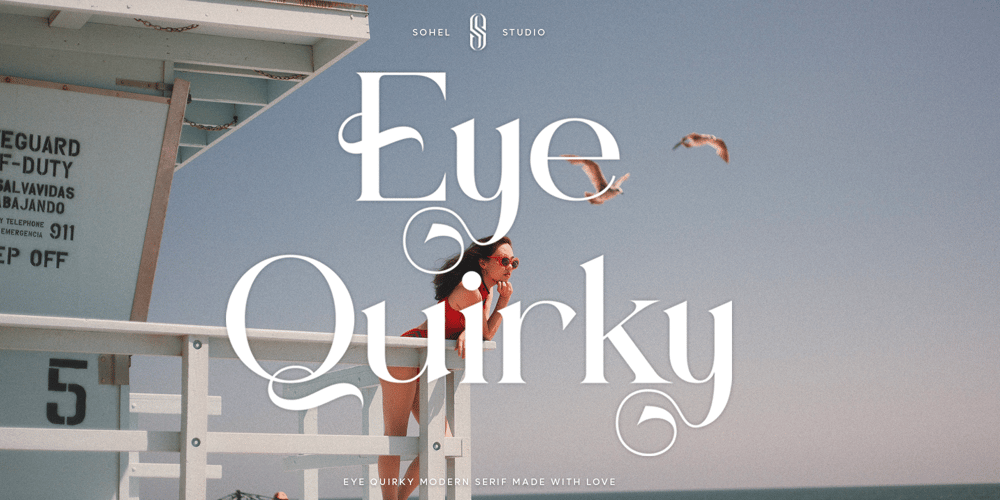
Eye Quirky
Eye Quirky font
Eye Quirky Font Family was designed by Akhmad Husain Rifa’i and published by Sohel Studio. Eye Quirky contains 2 styles and family package options. Eye Quirky is a Modern elegant serif typeface with Unique alternative , multilingual support with perfect kerning.This typeface is perfect for an elegant & luxury logo , classy editorial design, women’s magazine, fashion brand , cosmetic brand, fashion promotion , modern advertising design, invitation card, art quote, home decoration , book/cover titles, special events, Tote bag, T-shirt, Advertising and much more.Eye Quirky Features:• Uppercase And Lowercase• Alternates And Ligatures• Numerals & Punctuation• Accented characters• Multilingual Support• Unicode PUA EncodedWhile using this product, if you encounter any problem or spot something we may have missed, please don’t hesitate to drop us a message. We’d love to hear your feedbacks in order to further fine-tune our products. Thanks and have a wonderful day .